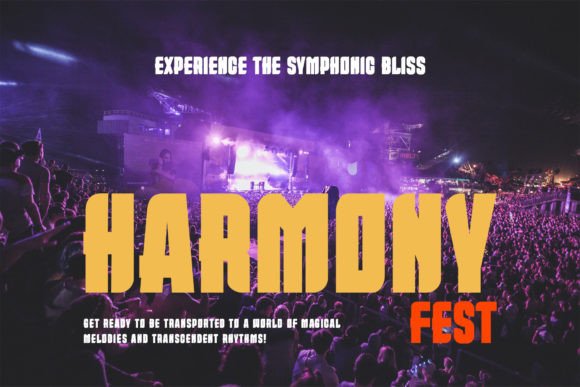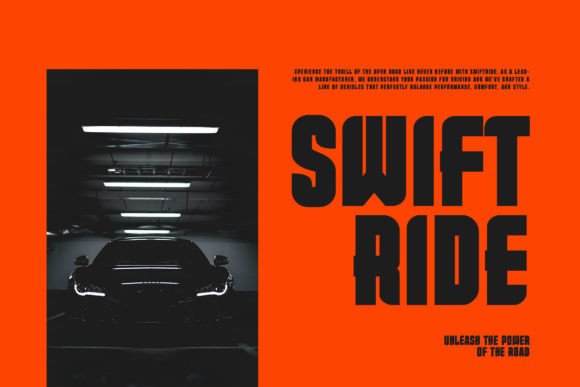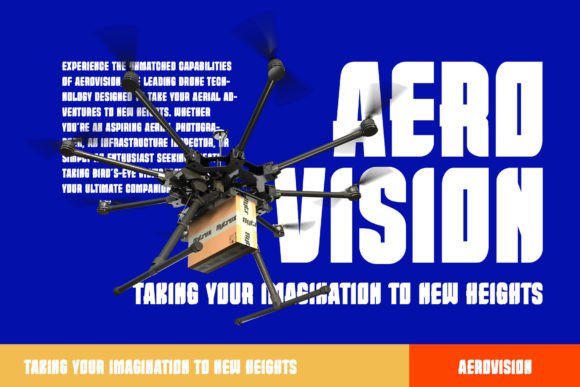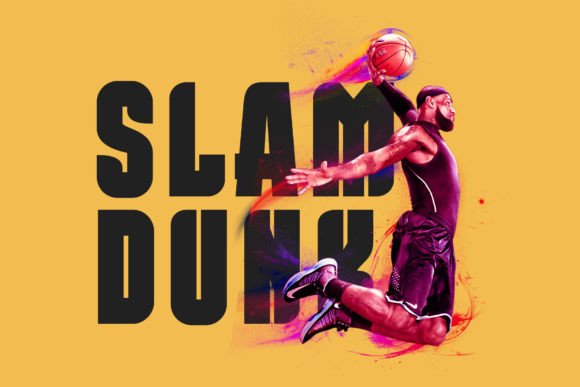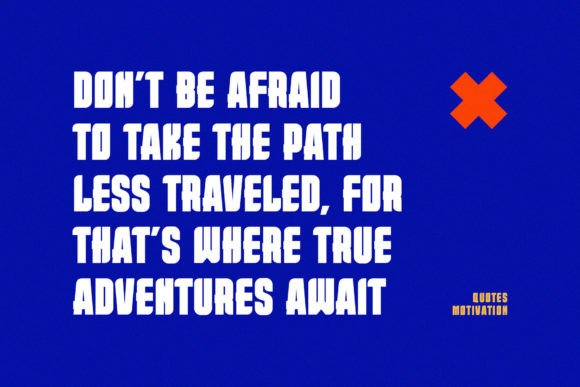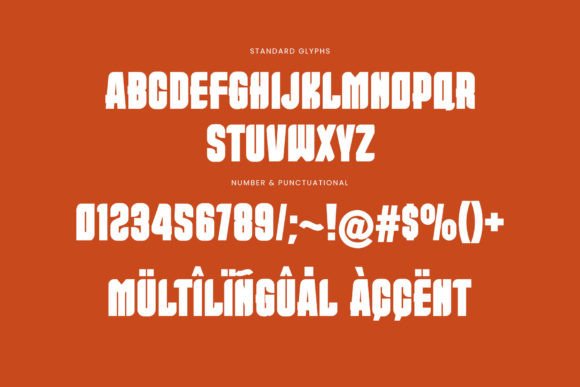
Introduction to Sacoga Font Font
Fonts play a crucial role in design, and the Sacoga Font font is a typeface that brings both character and versatility to any project. Whether you’re working on a branding project, a website, or a print design, the Sacoga Font font offers a unique style that can elevate your work.
Sacoga Modern Futuristic Sans Serif.
This typeface encapsulates a rhythm that is symmetrical and balanced due to a unique mix of different sources of inspiration Proportions are precisely adjusted with subtle contours and subtle contrasts.
Key Features of Sacoga Font Font
Why Choose Sacoga Font Font?
The Sacoga Font font is more than just a typeface – it’s a design tool that helps you communicate your message with style and clarity. Its unique character set and versatile design make it suitable for a wide range of applications, from elegant invitations to bold headlines.
With its carefully crafted letterforms and balanced proportions, the Sacoga Font font ensures readability and visual appeal across all mediums.
What makes Sacoga Font font special?
The Sacoga Font font stands out with its unique design, exceptional readability, and versatility across various design applications.